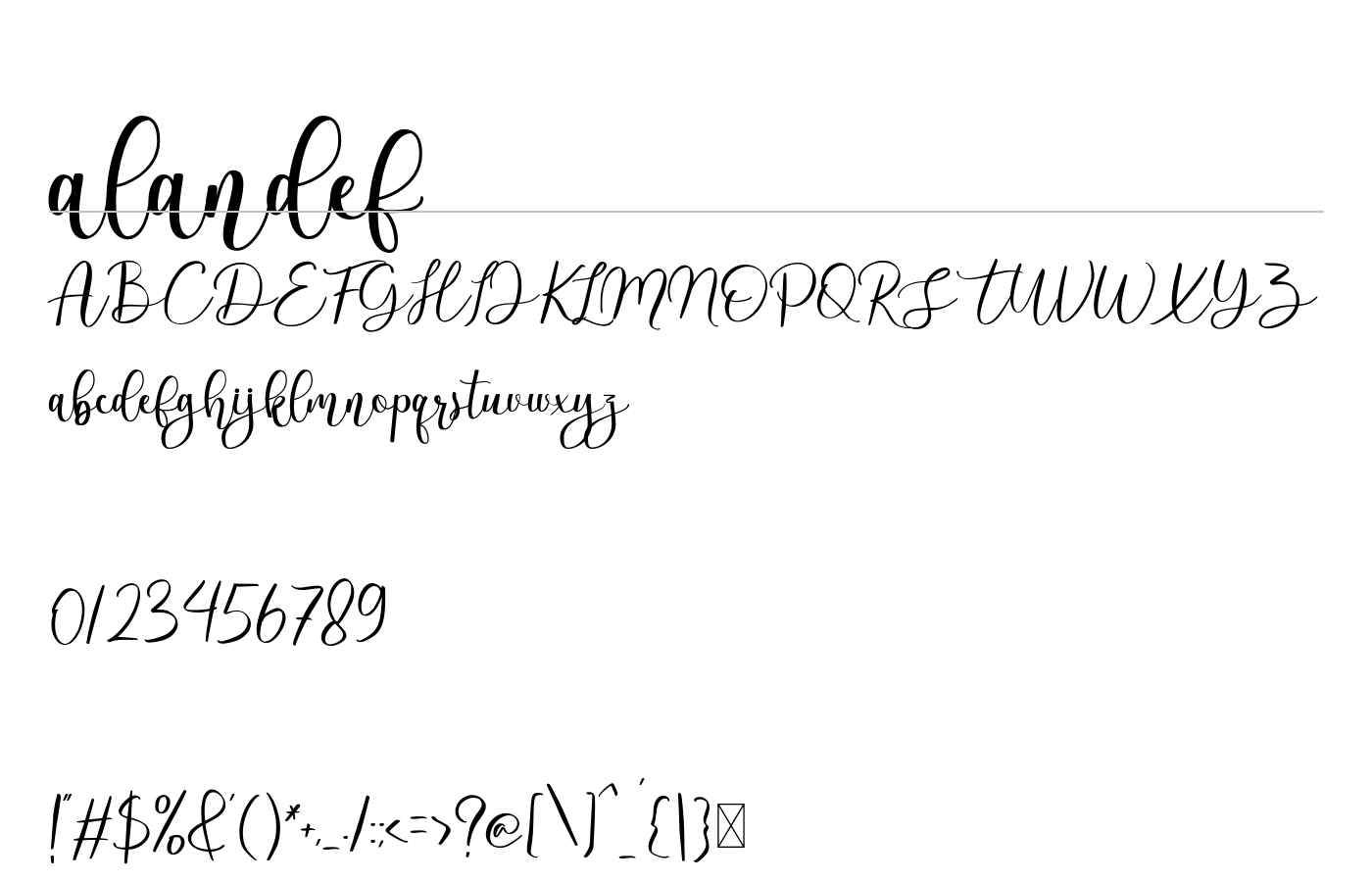
Alandef is a delicate, flowing script font with elegant, thin strokes and a consistent light weight, offering both uppercase and lowercase letters with graceful, looping forms. Its high, calligraphic x-height and smooth, connected letterforms make it perfect for feminine, romantic, or artistic projects like wedding invitations, greeting cards, and sophisticated branding. This font’s refined, handwritten feel lends a personal and stylish touch, enhancing designs that need a warm and charming aesthetic.
alandef Font
About alandef Font